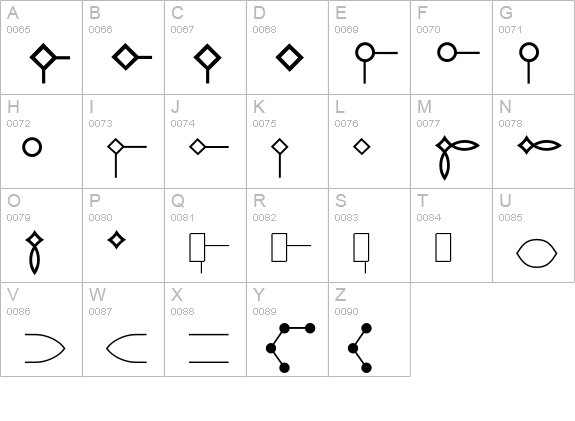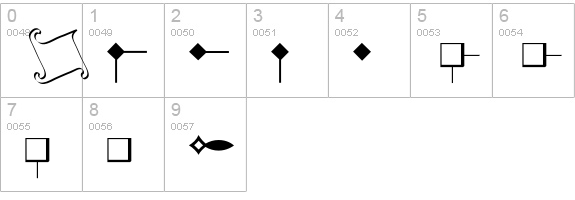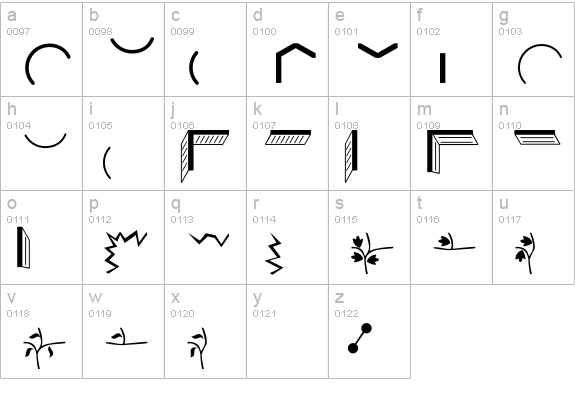
Newclips Font Details
Introducing Newclips font, a modern and stylish typeface perfect for adding a touch of sophistication to your projects. With its clean lines and elegant curves, Newclips exudes a sense of contemporary flair that is sure to elevate any design. This versatile font is ideal for a wide range of applications, from branding and marketing materials to website design and more. The best part? Newclips is completely free to download at FontsMarket.com, making it accessible to designers of all levels. Whether you're working on a personal project or a professional commission, Newclips offers the perfect blend of style and functionality to bring your creative vision to life. Don't miss out on this opportunity to enhance your designs with the sleek and modern aesthetic of Newclips font - download it today and start creating stunning visuals that stand out from the crowd.